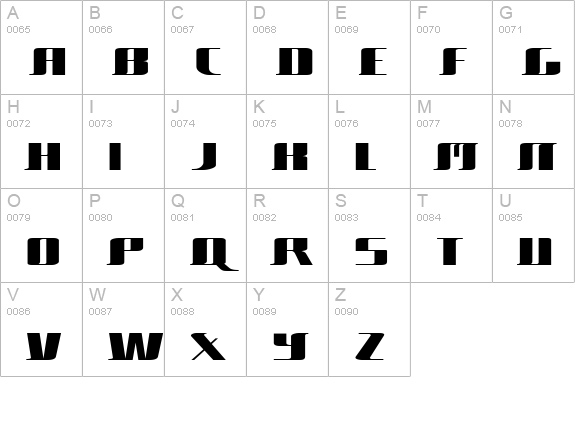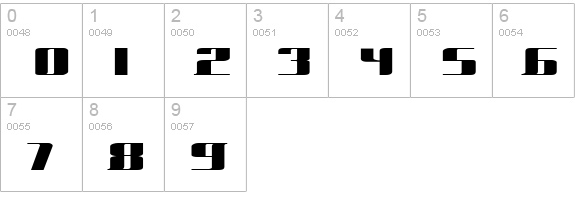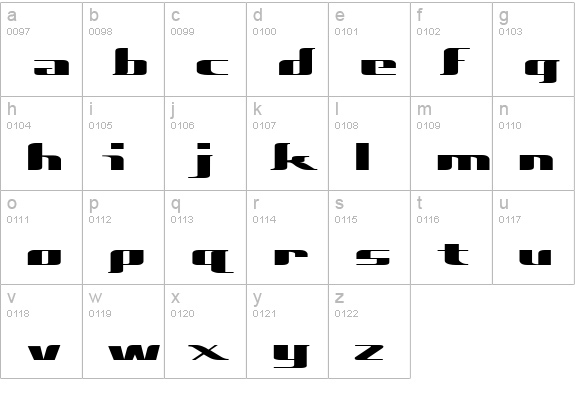
$Five Double Zero Font Details
$Five Double Zero font is a modern and stylish typeface that exudes a sense of sophistication and elegance. With its clean lines and unique design, this font is perfect for a wide range of projects, from branding and advertising to editorial and web design. The sleek, geometric shapes of the letters give $Five Double Zero font a contemporary and versatile look that is sure to make your text stand out. Best of all, $Five Double Zero font is available for free download at FontsMarket.com. This means you can easily access this high-quality font and use it in your projects without any cost. Whether you are a seasoned designer or just starting out, $Five Double Zero font is a fantastic choice that will add a touch of class to any design. Get your hands on this amazing font today and elevate your creations to the next level.